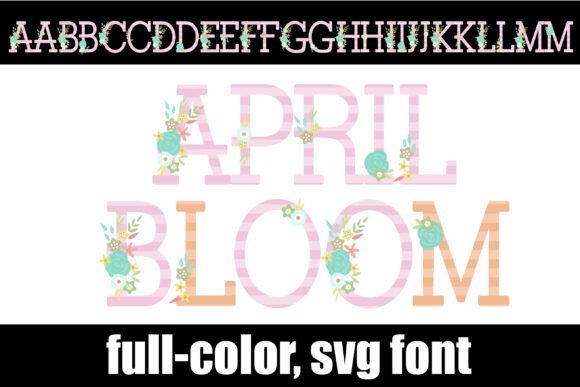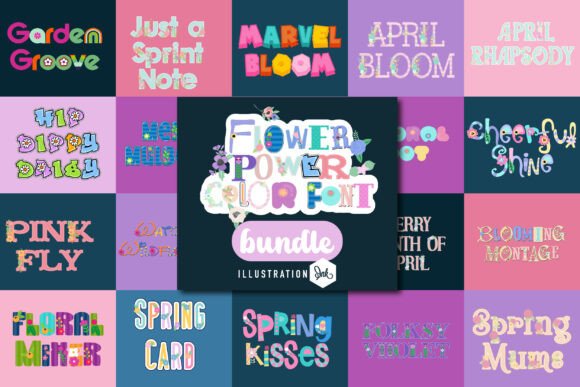
Introducing the Flower Power Color Font Bundle: A Blooming Masterpiece for Designers
Are you ready to infuse your designs with the freshness and vibrancy of a spring garden? Look no further than the Flower Power Color Font Bundle, a stunning collection of 20 full-color fonts that celebrate the beauty of flowers. This hand-crafted bundle is a must-have for designers, crafters, and anyone looking to add a touch of whimsy and charm to their projects.
A Collection of Decorative Fonts with a Floral Twist
The Flower Power Color Font Bundle is a unique and expressive collection of fonts that feature charming floral details and retro-inspired flair. Each font in the bundle is carefully crafted to bring a sense of joy and positivity to your designs, making it perfect for a wide range of projects, from botanical-themed branding to cheerful event invitations and whimsical nursery art.
Key Features of the Flower Power Color Font Bundle
- 20 Full-Color Fonts: The bundle includes 20 unique, full-color fonts that are perfect for adding a pop of color to your designs.
- Multi-Colored and Decorative: Each font in the bundle features a multi-colored, decorative design that’s sure to add visual interest to your projects.
- Floral Details and Retro-Inspired Flair: The fonts in this bundle are adorned with charming floral details and retro-inspired flair, giving them a unique and playful feel.
- Hand-Crafted with Love: Each font in the bundle is carefully hand-crafted with love and attention to detail, ensuring that they are of the highest quality.
The Flower Power Color Font Bundle is versatile and can be used for a wide range of projects, including:
- Botanical-Themed Branding: Create beautiful and eye-catching branding for your business or client with a botanical theme.
- Cheerful Event Invitations: Add a touch of whimsy and charm to your event invitations with these delightful fonts.
- Whimsical Nursery Art: Create adorable and engaging nursery art with these playful and colorful fonts.
- Social Media Graphics: Use these fonts to create stunning social media graphics that are sure to grab attention.
Benefits of Using the Flower Power Color Font Bundle
By using the Flower Power Color Font Bundle, you’ll enjoy a range of benefits, including:
- Time-Saving: With 20 unique fonts at your fingertips, you’ll save time searching for the perfect font for your project.
- Consistency: The fonts in this bundle are designed to work together seamlessly, ensuring consistency across your designs.
- Uniqueness: The Flower Power Color Font Bundle offers a unique and distinctive style that’s sure to set your designs apart from the crowd.
Get Ready to Bloom with Creativity!
The Flower Power Color Font Bundle is a must-have for designers and crafters looking to add a touch of freshness and vibrancy to their projects. With its unique and expressive fonts, this bundle is sure to inspire creativity and bring a smile to your face. So why wait? Get your hands on the Flower Power Color Font Bundle today and start blooming with creativity!
In conclusion, the Flower Power Color Font Bundle is a stunning collection of fonts that’s sure to bring a touch of whimsy and charm to your designs. With its unique and expressive fonts, this bundle is perfect for designers and crafters looking to add a pop of color and freshness to their projects. So don’t wait – get your hands on this blooming masterpiece today!